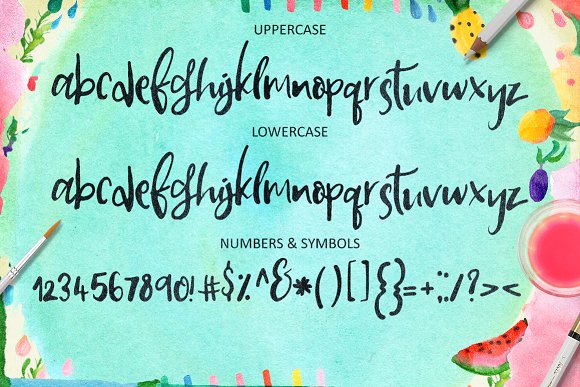
Introducing Grainger Font: A Handcrafted Beauty by Creativeqube
Are you a designer or crafter looking for a unique and elegant font to elevate your creative projects? Look no further than Grainger Font, a stunning handcrafted font designed by Creativeqube. In this article, we’ll dive into the world of Grainger Font, exploring its features, benefits, and uses, as well as provide tips on how to make the most of this beautiful typography.
What is Grainger Font?
Grainger Font is a beautiful handcrafted font created by Creativeqube, a team of skilled designers passionate about crafting unique and functional typography. Grainger Font is a testament to their expertise, boasting a distinctive and elegant design that’s perfect for a wide range of creative projects.
Key Features of Grainger Font
- Handcrafted with love: Grainger Font is meticulously crafted by hand, giving it a unique and personal touch that’s hard to find in digital fonts.
- Beautifully elegant: With its flowing lines and delicate curves, Grainger Font exudes elegance and sophistication, making it perfect for high-end designs.
- Highly versatile: Whether you’re designing a logo, creating a craft project, or working on a digital platform, Grainger Font adapts seamlessly to various applications.
- Easy to read: Despite its ornate design, Grainger Font remains highly legible, ensuring your message gets across clearly and effectively.
Benefits of Using Grainger Font
So, why choose Grainger Font for your creative projects? Here are just a few benefits you can expect:
- Add a personal touch: With Grainger Font, you can add a touch of personality to your designs, setting them apart from the crowd.
- Elevate your brand: Grainger Font’s elegant design makes it perfect for branding and logo design, helping you establish a sophisticated and professional image.
- Enhance your craft projects: Whether you’re working on a handmade craft project or creating digital art, Grainger Font adds a beautiful, handcrafted feel that’s sure to delight.
Using Grainger Font in Your Designs
Ready to get started with Grainger Font? Here are some tips on how to make the most of this stunning typography:
- Pair it with complementary fonts: Combine Grainger Font with clean, modern fonts to create a striking contrast that adds visual interest.
- Experiment with colors and textures: Grainger Font looks beautiful in a range of colors and textures, so don’t be afraid to get creative and try out different effects.
- Use it for headlines and titles: Grainger Font’s elegant design makes it perfect for headlines and titles, adding a touch of sophistication to your designs.